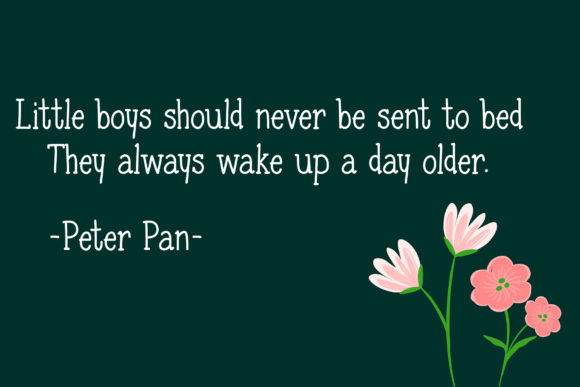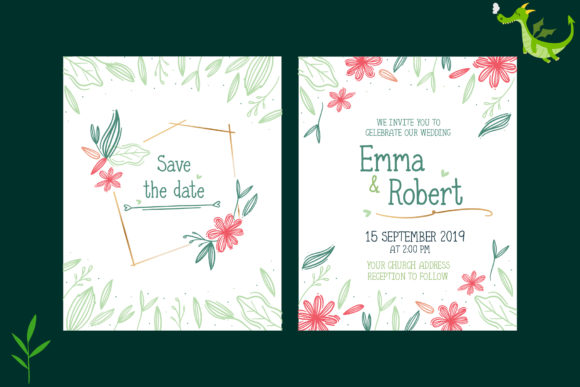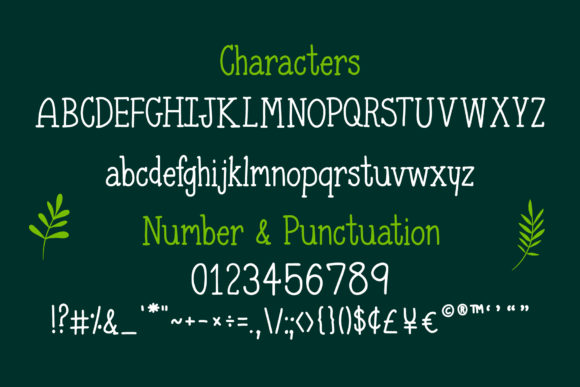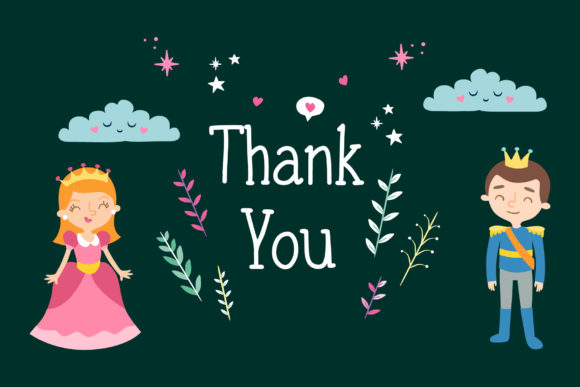
Fairy Tales Font
About Fairy Tales Font
Fairy tales is a cute and fun handwritten font, created by using a brush pen. Clean and a little bit quirky, this font is the perfect fit for all of your logos, branding, social media, and crafty DIY projects.